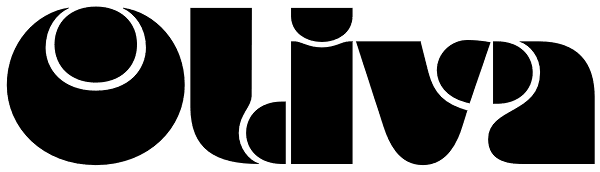
Oliva
Oliva & Oliva Italic are two strong and funky display fonts. Influences came from typefaces like Futura Black by Paul Renner and Motter Ombra by Othmar Motter, but also Stilla by François Boltana and Allegro by Hans Bohn lay on the desk. All these...
Oliva
Oliva Italic